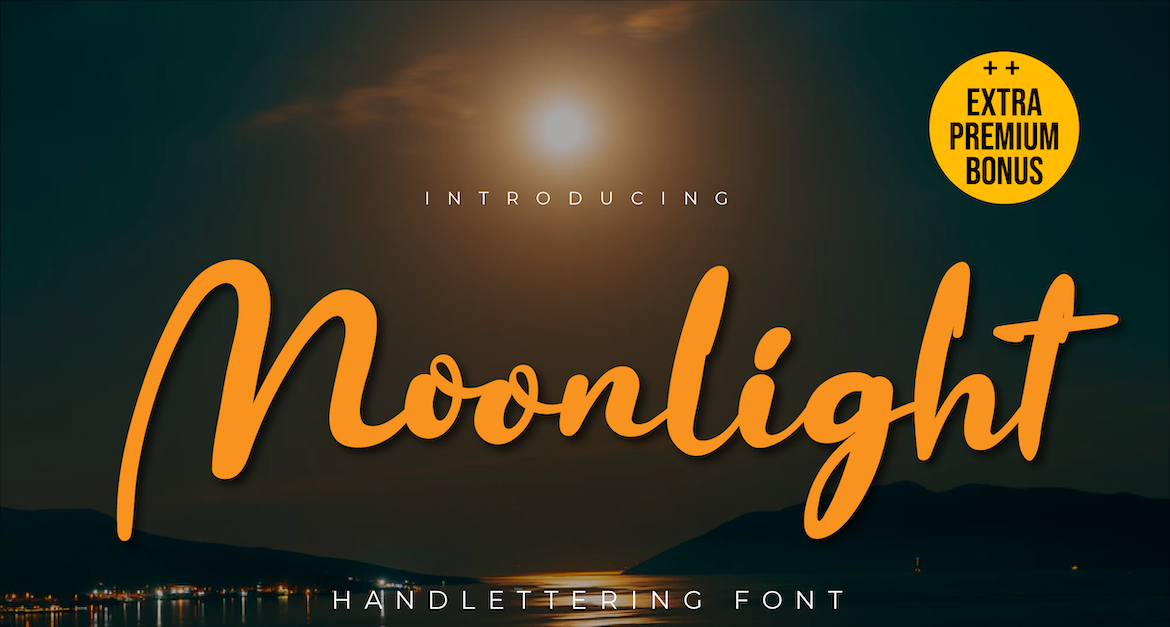
Moonlight Font
Moonlight is a unique and interesting handwritten font. Incredibly versatile, this font will fit a wide pool of designs.
Fall in love with its incredibly stylish look and use it to create spectacular designs!This charming font also offers the beauty of abstract typography harmony for a wide variety of design projects, including digital natural handwriting for designs, quote designs, for social media business designs, advertisements, trademarks, food and beverage promotion banners, text, posters, signature, and all designs require handwriting or whatever design you want.